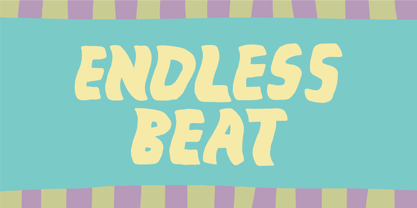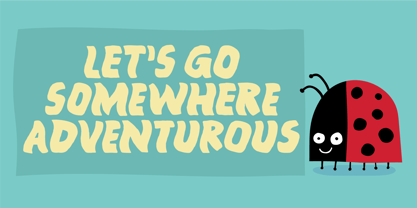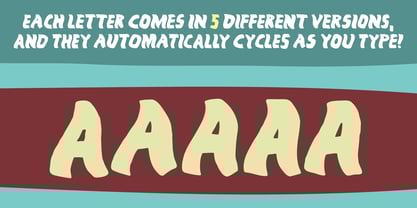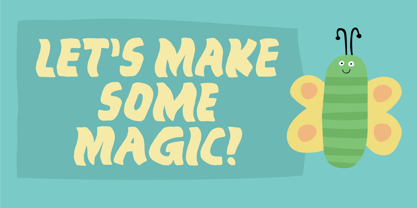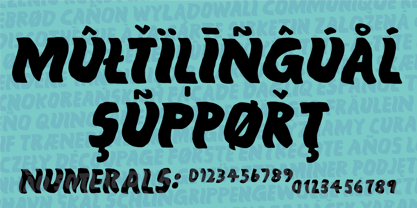
EndlessBeat
by PizzaDude.dk
The EndlessBeat Font Family was designed by Jakob Fischer and published by PizzaDude.dk. EndlessBeat contains 1 styles.
The other day I was attending a musical event, and when the event ended, a DJ took over. She played really nice danceable music, but there was never really a logic point of “now it’s time to leave, because they don’t play anything I can dance to” - meaning I danced ‘till I got really sore feet ... the beat was ... endless ... like the name of this wavy and rippled font!
I have added 5 different versions of each letter and multilingual support! :)